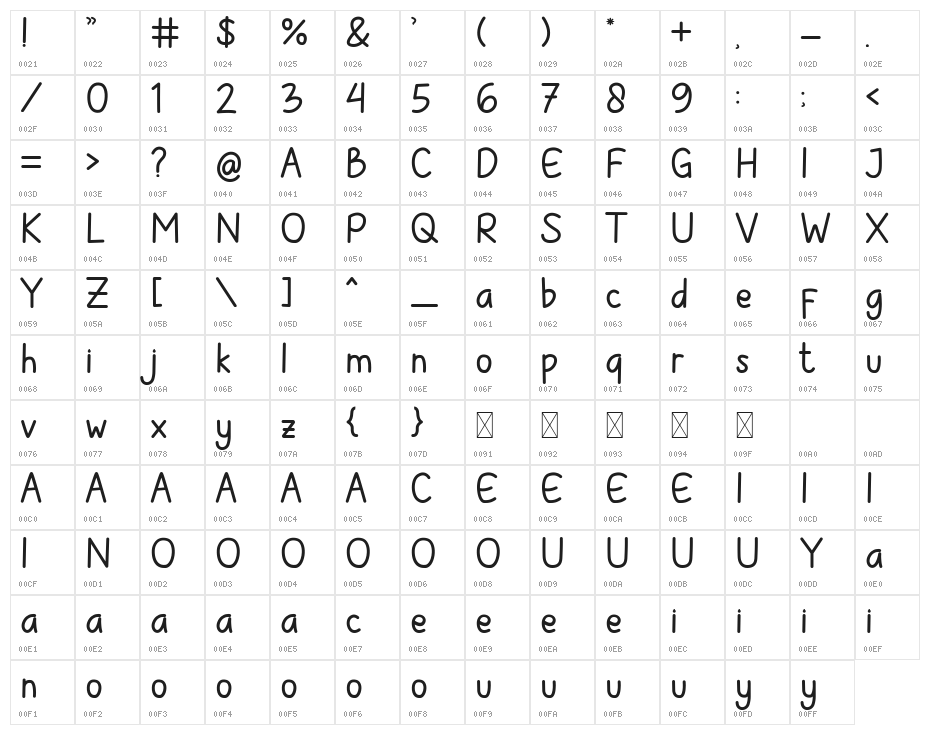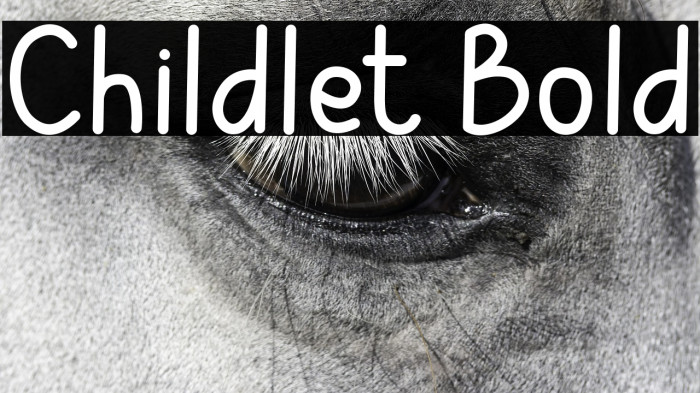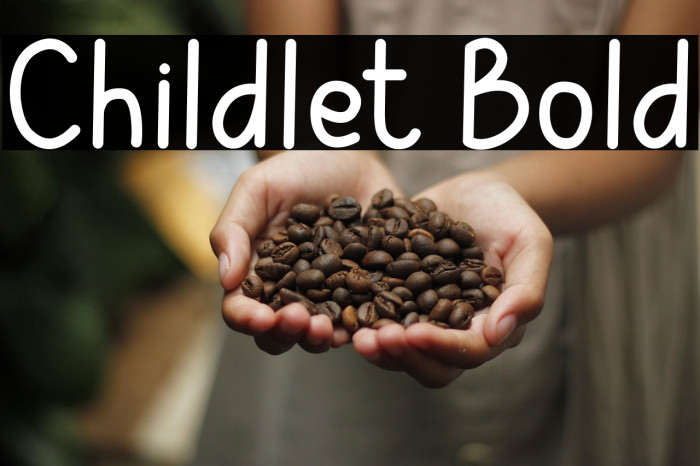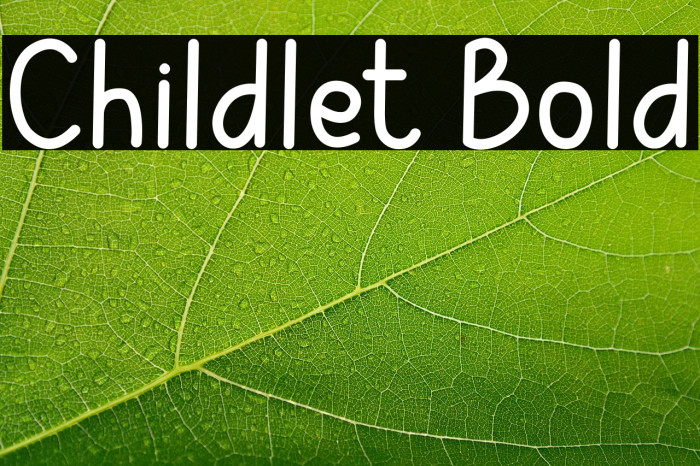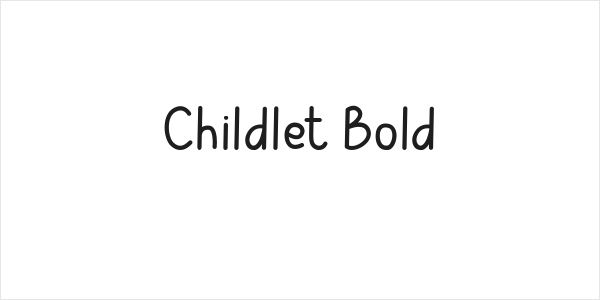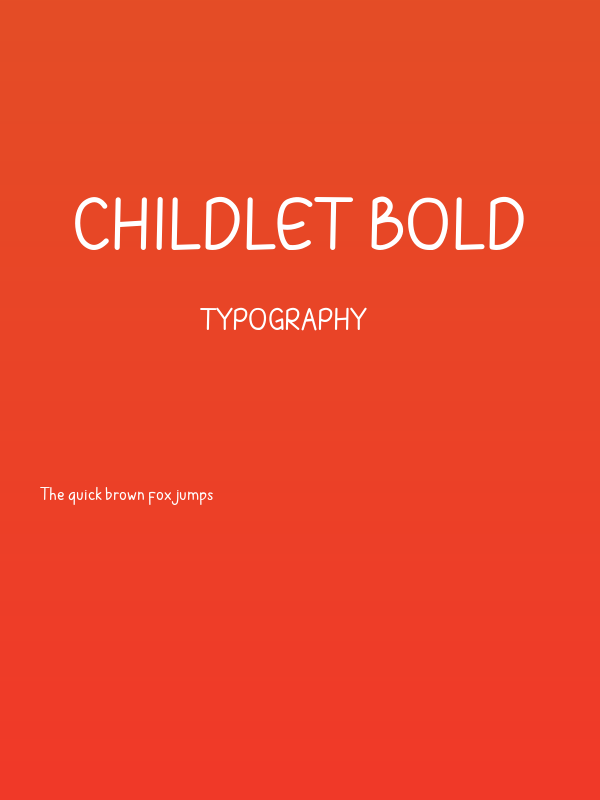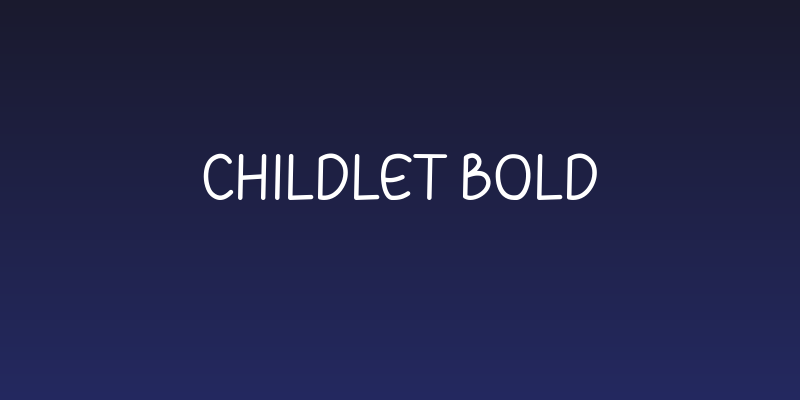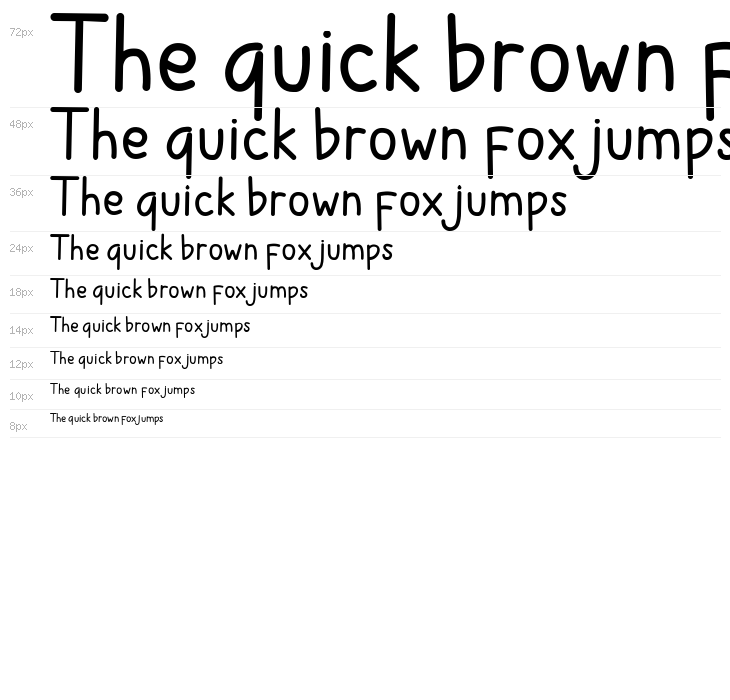
Childlet Bold Font
Childlet Bold Description
This playful and rounded font exudes a youthful and friendly vibe, characterized by its smooth curves and slightly irregular strokes. The letters are bold and have a hand-drawn quality, making them appear approachable and informal. The uppercase and lowercase letters maintain a consistent style, with a slight variation in stroke thickness that adds to its charm. The numerals and special characters are equally whimsical, ensuring a cohesive look across all text elements. This font is perfect for projects that aim to convey warmth and creativity.
| Proposed Projects | Ideal for children's books, educational materials, playful branding, and creative posters. |